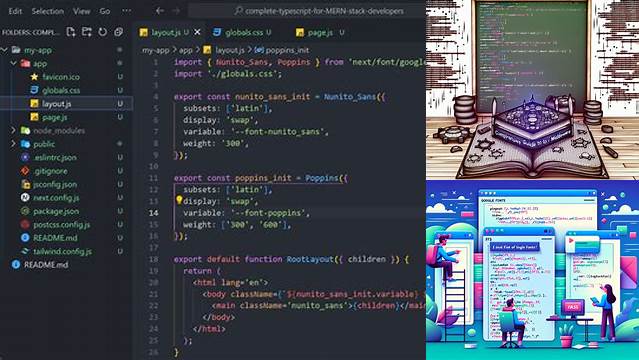
Google Fonts In Next.js 14: A Step-by-Step Guide
Hey guys! If you're diving into the world of Next.js 14 and want to make your web app look slick, you're in the right place. Today, we're going to break down how to use Google Fonts in your Next.js 14 projects. Trust me, it’s easier than you think, and it can seriously level up your site’s typography game. Let's get started!
Why Use Google Fonts in Next.js 14?
Before we jump into the how-to, let's quickly chat about why you'd want to use Google Fonts in the first place. Google Fonts offers a massive library of free, open-source fonts that can make your website stand out. They're super easy to integrate, and using them can drastically improve your site's visual appeal and readability. Plus, they're optimized for the web, meaning they load quickly and won't bog down your site's performance.
- Vast Library: Google Fonts boasts an extensive collection of fonts, catering to diverse design aesthetics. Whether you're aiming for a modern, minimalist look or a classic, elegant feel, you'll find a font (or several!) that fits the bill. This variety allows you to experiment and discover the perfect typography to complement your brand and content.
- Ease of Use: Integrating Google Fonts into your Next.js 14 project is straightforward. With just a few lines of code, you can import and use any font from the library. This simplicity makes it a go-to choice for developers of all skill levels, saving time and effort in the design process.
- Performance: Google Fonts are hosted on Google's global CDN, ensuring fast loading times for your website visitors. These fonts are optimized for web use, which means they're designed to be lightweight and efficient. By using Google Fonts, you can enhance your site's performance and provide a smooth user experience.
- Improved Readability and Accessibility: Typography plays a crucial role in readability and accessibility. Google Fonts offers a wide range of fonts that are designed to be clear and legible, enhancing the overall reading experience for your users. By choosing the right fonts, you can ensure your content is accessible to a broader audience, including those with visual impairments.
- Cross-Browser Compatibility: Google Fonts are designed to work seamlessly across all major web browsers, ensuring a consistent and reliable experience for your visitors. You won't need to worry about font rendering issues or compatibility problems, allowing you to focus on creating great content and user experiences.
In essence, choosing Google Fonts is about enhancing your site’s visual identity, ensuring performance, and improving user experience, all while keeping things simple and cost-effective. So, let's dive into how you can actually get these fonts working in your Next.js 14 project.
Step-by-Step Guide to Using Google Fonts in Next.js 14
Okay, let’s get to the fun part! Here’s a step-by-step guide on how to use Google Fonts in your Next.js 14 application. We’ll cover everything from picking your fonts to implementing them in your project.
1. Choose Your Fonts
First things first, head over to the Google Fonts website. This is where the magic happens. You can browse through hundreds of fonts, filter by categories like serif, sans-serif, and display, and even type in sample text to see how the fonts look in action. Take your time and pick fonts that vibe with your project’s aesthetic.
When choosing your fonts, think about the overall tone and message of your website. Are you aiming for a professional, corporate look? Or something more playful and creative? Different fonts evoke different emotions and can significantly impact your site's visual appeal. Consider the following:
- Font Pairing: Think about which fonts will complement each other. Typically, it's a good idea to pair a serif font for headings with a sans-serif font for body text, or vice versa. This creates a visual hierarchy and makes your content more readable.
- Legibility: Make sure the fonts you choose are easy to read, especially for body text. Avoid overly decorative or complex fonts that can strain the eyes. Clear, legible fonts will keep your visitors engaged and improve their overall experience.
- Font Weights and Styles: Check if the fonts you like offer different weights (e.g., regular, bold, italic) and styles. Having a variety of weights and styles gives you more flexibility in your design and allows you to create emphasis and visual interest.
- Character Support: If your website will feature content in multiple languages, ensure that the fonts you choose support the necessary character sets. This will prevent issues with missing glyphs or incorrect rendering of text.
Once you've found a font (or fonts) you love, click on it to open its page. Here, you can see all the available styles and weights, and you can add them to your selection. Don't go overboard—usually, a couple of well-chosen fonts are better than a dozen. Simplicity often leads to elegance and readability. After you've made your selections, Google Fonts provides a convenient way to include them in your project, which brings us to the next step.
2. Install the @next/font
Package
Next.js 14 has a cool built-in way to optimize Google Fonts using the @next/font
package. This package helps you load fonts efficiently, improving your site’s performance. To install it, open your terminal, navigate to your Next.js project directory, and run:
npm install @next/font
This command adds the @next/font
package to your project's dependencies, allowing you to import and use Google Fonts in your components. This package is designed to work seamlessly with Next.js, providing optimized font loading and caching strategies.
The @next/font
package offers several key benefits:
- Automatic Optimization: It automatically optimizes your fonts for the web, ensuring they load quickly and efficiently. This includes features like font subsetting and preloading, which can significantly improve your site's performance.
- Reduced Layout Shift: By using
@next/font
, you can minimize layout shift caused by font loading. This ensures a smoother user experience, as the text won't jump around as the fonts load. - CSS Variables: The package allows you to define font styles using CSS variables, making it easy to manage and update your typography across your application.
- Self-Hosting: You can choose to self-host your fonts, giving you more control over the font files and further optimizing performance. This is particularly useful for sites that require the highest levels of performance and control.
With @next/font
installed, you’re ready to start importing and using Google Fonts in your components. This package simplifies the process and ensures that your fonts load efficiently, contributing to a better user experience.
3. Import Fonts in Your Component
Now, let’s actually use those fonts! Open the component where you want to use a Google Font. At the top of your file, import the specific font you chose from @next/font/google
. For example, if you picked “Roboto,” you’d do this:
import { Roboto } from '@next/font/google';
This line imports the Roboto font family from the @next/font/google
package. You can replace “Roboto” with the name of any font you’ve chosen from Google Fonts. The @next/font/google
package provides optimized versions of these fonts, ensuring they load quickly and efficiently in your Next.js application.
Next, you need to configure the font by creating an instance of the imported font family. This involves specifying the weights and styles you want to use. For example:
const roboto = Roboto({
weight: ['400', '700'],
subsets: ['latin'],
});
In this example, we’re creating an instance of the Roboto font family and specifying that we want to use the 400 (regular) and 700 (bold) font weights. The subsets
property is set to ['latin']
, which means the font will only include characters from the Latin alphabet. This can help reduce the font file size and improve loading times.
You can also specify other properties, such as style
(e.g., italic
) and display
(e.g., swap
, fallback
). The display
property controls how the font is displayed while it’s loading. swap
is a common choice, as it tells the browser to use a fallback font until the custom font is loaded, preventing a flash of invisible text.
4. Apply the Font
With your font imported and configured, it’s time to apply it to your elements. Next.js 14 makes this super easy. The font object you created (like roboto
in our example) has a className
property that you can add to your HTML elements. Here’s how:
<h1 className={roboto.className}>Hello, Next.js!</h1>
<p className={roboto.className}>This is some text using Roboto font.</p>
By adding className={roboto.className}
to your HTML elements, you’re telling Next.js to apply the Roboto font styles to those elements. The className
property automatically generates the necessary CSS classes to load and apply the font. This is a clean and efficient way to manage your typography in Next.js.
You can also apply the font globally by adding it to your _app.js
or _app.tsx
file. This ensures that the font is applied to all pages and components in your application. Here’s how you can do it:
import { Roboto } from '@next/font/google';
const roboto = Roboto({
weight: ['400', '700'],
subsets: ['latin'],
});
function MyApp({ Component, pageProps }) {
return (
<main className={roboto.className}>
<Component {...pageProps} />
</main>
);
}
export default MyApp;
In this example, we’re wrapping the Component
with a <main>
element and applying the Roboto font to the main
element. This ensures that the Roboto font is used as the default font for all text in your application, unless overridden by a more specific style.
5. Optimize Font Loading (Optional but Recommended)
To really nail your site’s performance, you might want to optimize how your fonts load. Next.js 14 and @next/font
offer some handy features for this:
display
Property: As we touched on earlier, thedisplay
property in the font configuration controls how the font is displayed while it’s loading. Setting it toswap
is a good idea, as it tells the browser to use a fallback font until the custom font is loaded. This prevents a flash of invisible text (FOIT) and ensures a smoother user experience.const roboto = Roboto({ weight: ['400', '700'], subsets: ['latin'], display: 'swap', });
Preloading Fonts: Preloading fonts can help them load even faster. Next.js automatically handles font preloading when you use
@next/font
, so you usually don’t need to do anything extra. However, if you have specific performance concerns, you can manually preload fonts using the<link>
tag in your<head>
. This is an advanced technique that can be useful for fine-tuning your site's performance. -
Self-Hosting Fonts: For maximum control over font loading, you can self-host your fonts. This means hosting the font files on your own server instead of relying on Google's CDN. Self-hosting can improve performance and privacy, but it also requires more configuration and maintenance. The
@next/font
package supports self-hosting, so you can explore this option if it fits your needs.
Common Issues and How to Solve Them
Even with a straightforward process, you might run into a few snags. Let’s tackle some common issues you might encounter when using Google Fonts in Next.js 14.
1. Font Not Displaying Correctly
Sometimes, you might import a font, apply it, and… nothing. The text looks the same as before. Here are a few things to check:
- Typos: Double-check that you’ve spelled the font name correctly in your import statement and class name. A simple typo can prevent the font from loading.
- Font Weights: Make sure you’ve imported the correct font weights. If you’re trying to use a bold font but haven’t included the bold weight in your font configuration, it won’t work.
- CSS Specificity: Ensure that your font styles aren’t being overridden by other CSS rules. Use your browser’s developer tools to inspect the element and see which styles are being applied. You may need to adjust your CSS to increase the specificity of your font styles.
2. Performance Issues
While Google Fonts are optimized for the web, using too many fonts or font weights can still impact your site’s performance. Here’s how to keep things speedy:
- Limit Font Choices: Stick to a maximum of two or three fonts for your site. Too many fonts can make your site look cluttered and can slow down loading times.
- Use Font Weights Sparingly: Only import the font weights you actually need. Every font weight you import adds to the file size, so be selective.
- Optimize Font Loading: As mentioned earlier, use the
display: swap
property to prevent FOIT and consider self-hosting your fonts for more control over loading times.
3. Layout Shift
Layout shift (also known as Cumulative Layout Shift or CLS) happens when elements on your page move around while the page is loading. This can be caused by fonts loading asynchronously. The @next/font
package is designed to minimize layout shift, but you can further reduce it by:
- Using
display: swap
: This ensures that a fallback font is displayed while the custom font is loading, preventing text from jumping around. - Preloading Fonts: Preloading fonts can help them load faster, reducing the time it takes for the layout to stabilize.
Best Practices for Using Google Fonts
To wrap things up, let’s go over some best practices for using Google Fonts in your Next.js projects. Following these tips will help you create beautiful, performant websites.
- Choose Fonts That Reflect Your Brand: Your fonts should align with your brand’s personality and message. Consider the overall tone and style of your website and choose fonts that complement it.
- Prioritize Readability: No matter how beautiful a font is, it’s useless if it’s not readable. Choose fonts that are clear and legible, especially for body text. Pay attention to font size, line height, and letter spacing to ensure a comfortable reading experience.
- Use a Consistent Font Scale: Establish a font scale for your website and stick to it. This helps create a visual hierarchy and makes your content more organized and accessible. Common font scales include the major third (1.250), perfect fourth (1.333), and golden ratio (1.618).
- Test Across Devices and Browsers: Always test your website on different devices and browsers to ensure that your fonts are rendering correctly. This will help you catch any compatibility issues and ensure a consistent experience for all users.
- Monitor Performance: Keep an eye on your site’s performance and make adjustments as needed. Use tools like Google PageSpeed Insights to identify potential issues and optimize your font loading strategy.
And there you have it! Using Google Fonts in Next.js 14 is a breeze once you get the hang of it. By following these steps and best practices, you can elevate your website’s design and create a fantastic user experience. So go ahead, experiment with different fonts, and make your Next.js projects shine. Happy coding, guys!